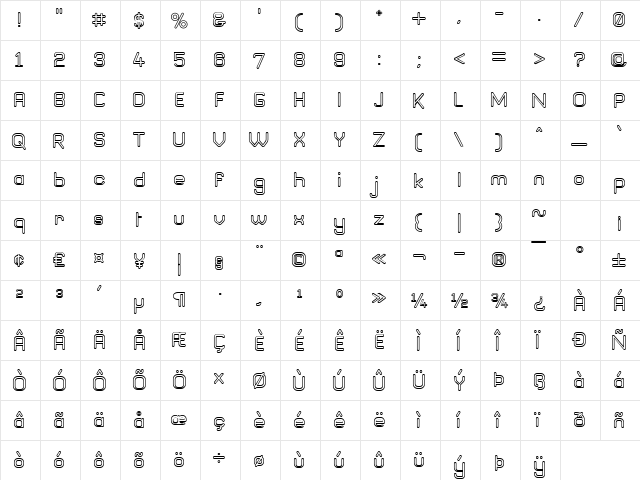
Brave New Era (outline) G98 Regular
Design Context for Brave New Era (outline) G98 Typeface
Brave New Era (outline) G98 brings ornamental detail and strong personality to headlines and identities, where visual impact matters more than quiet functionality.
Font Pairing: Pair with a clean neutral sans-serif for body copy to let Brave New Era (outline) G98's character lead without overwhelming the composition.
Pro Tip: Treat Brave New Era (outline) G98 as the centrepiece of your typographic hierarchy. One strong heading set in a decorative face can carry an entire layout.